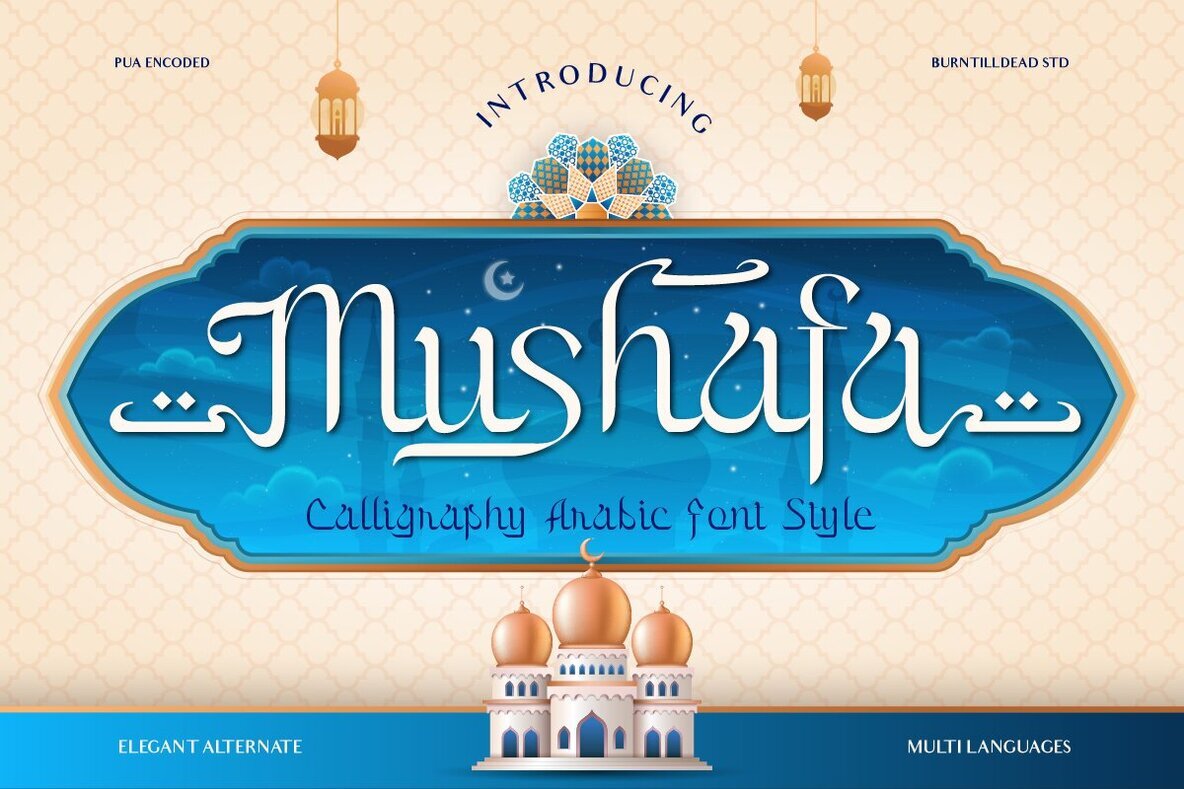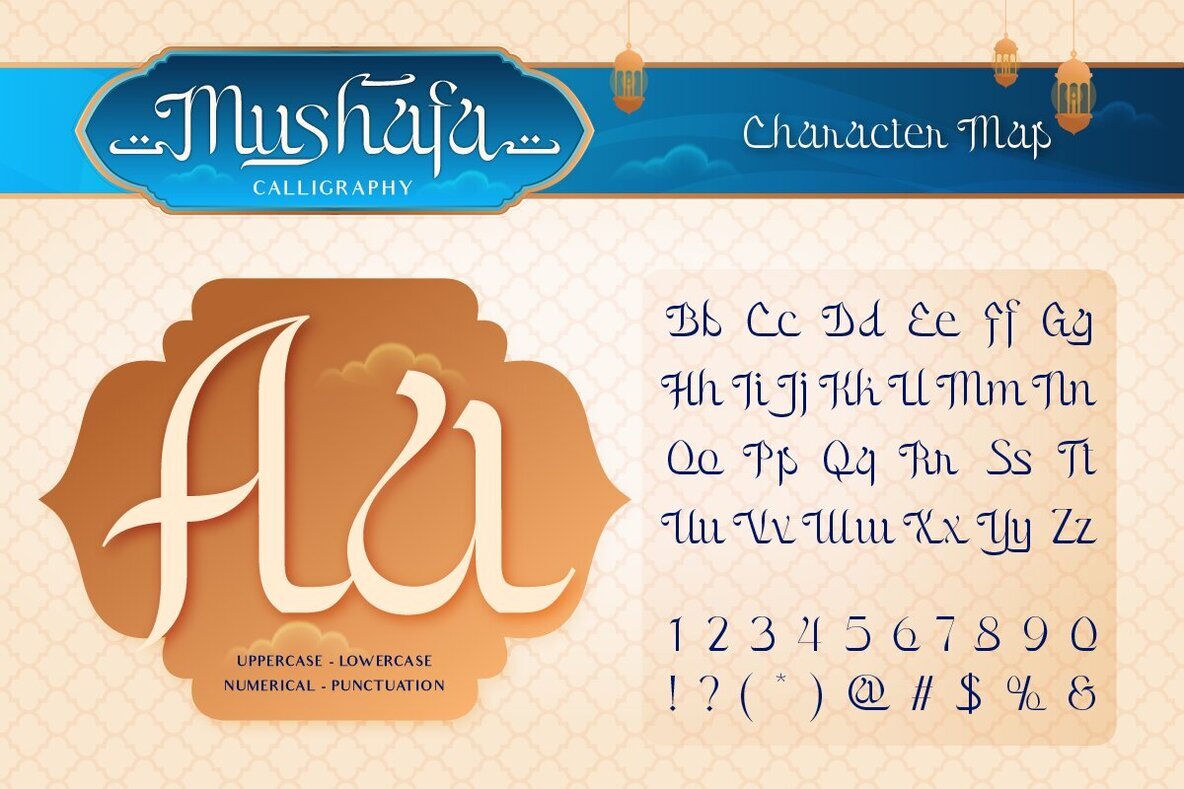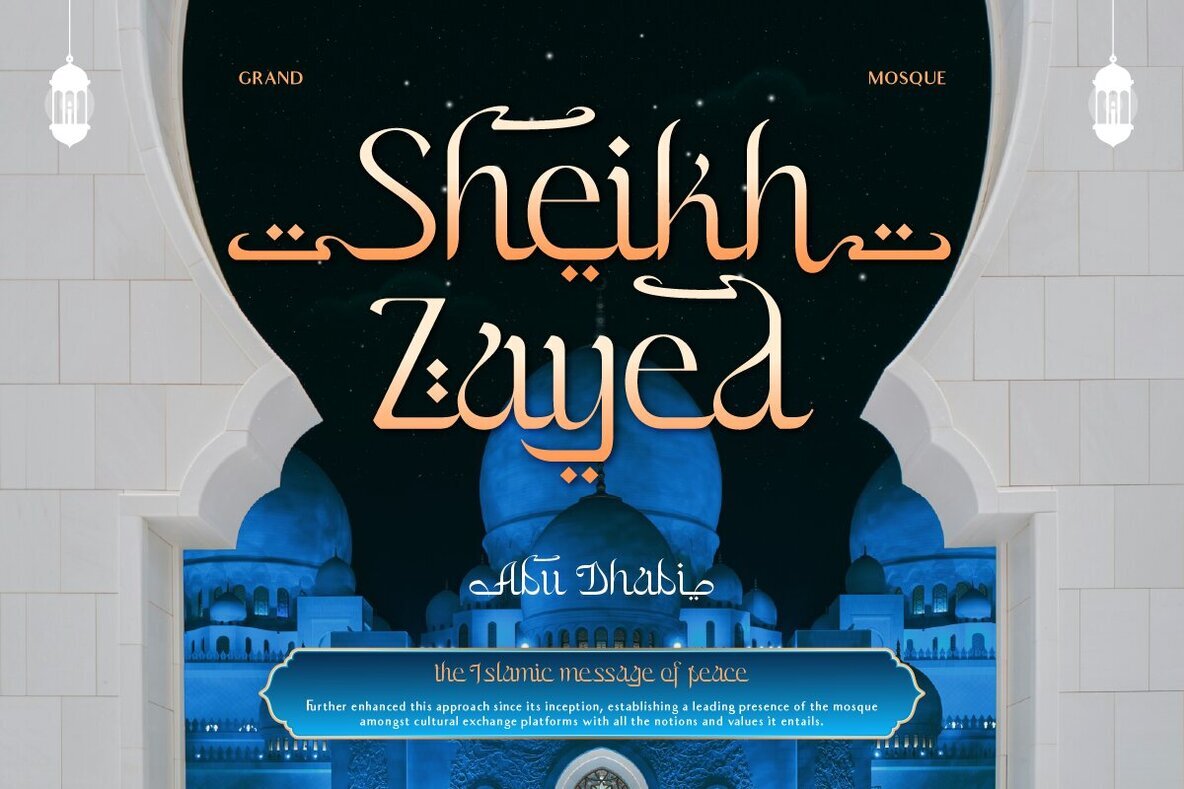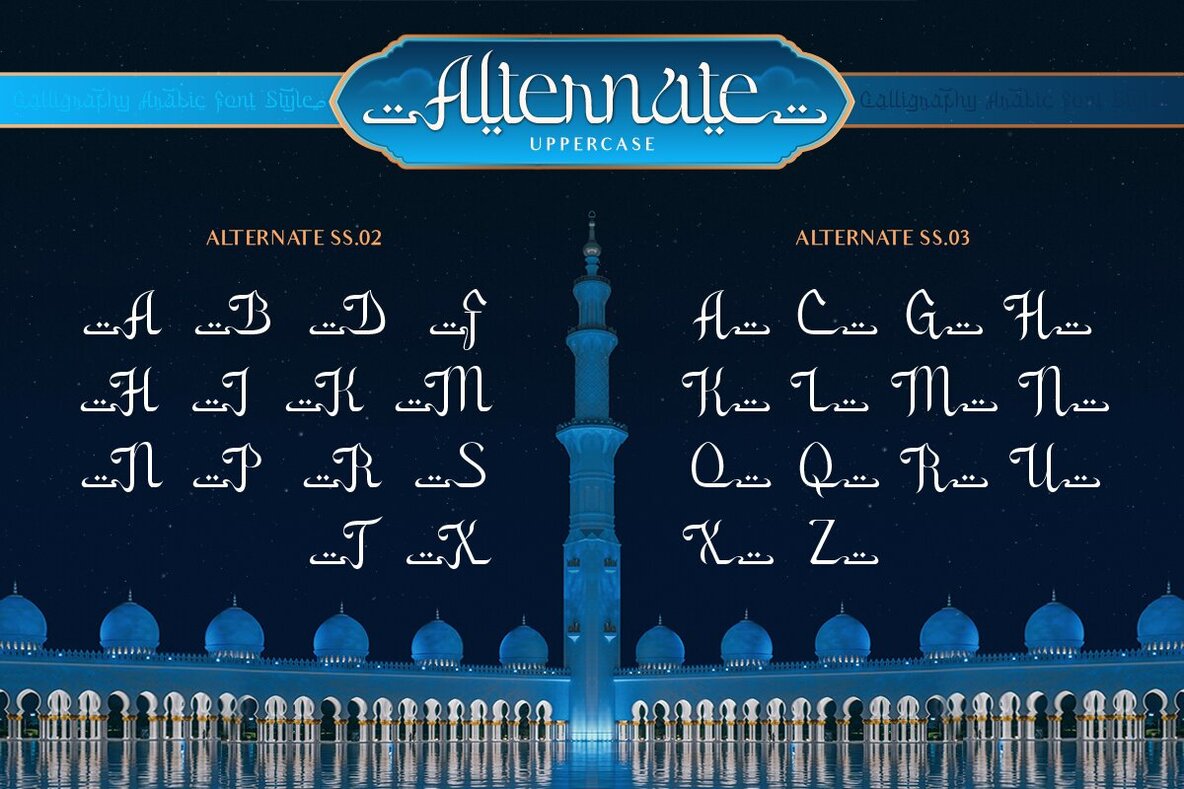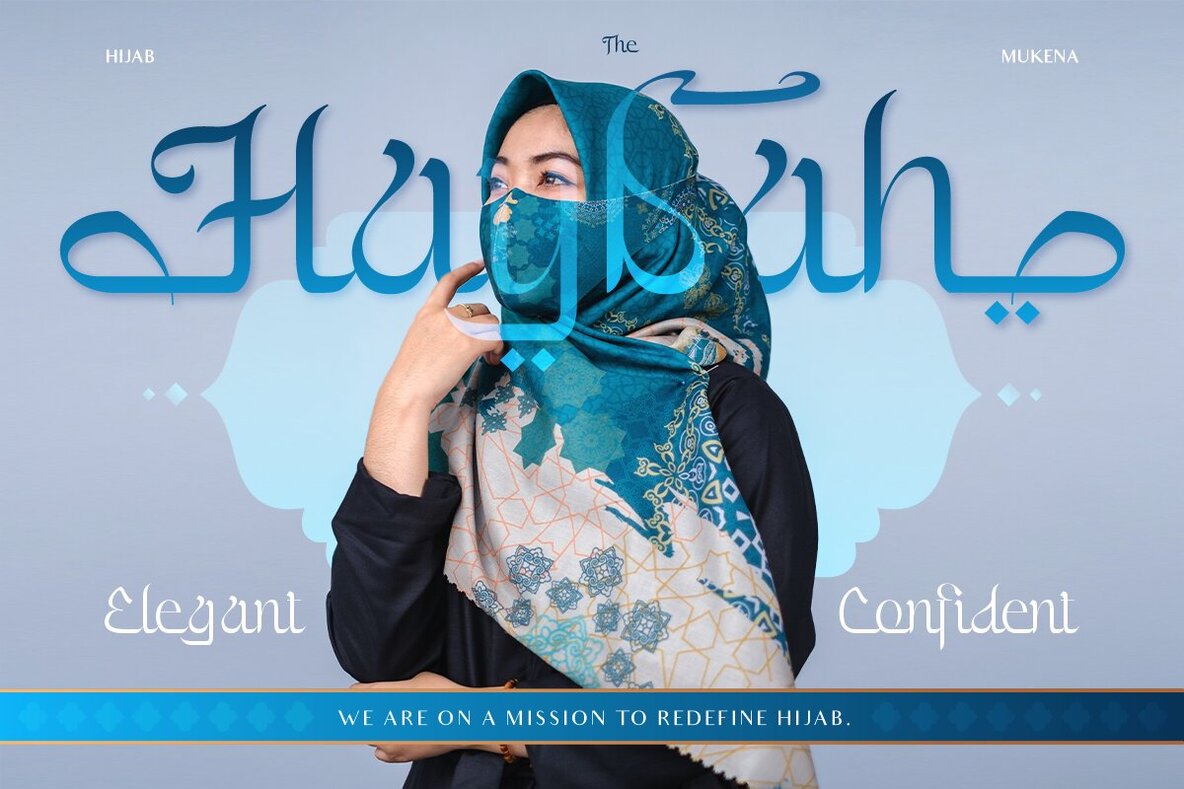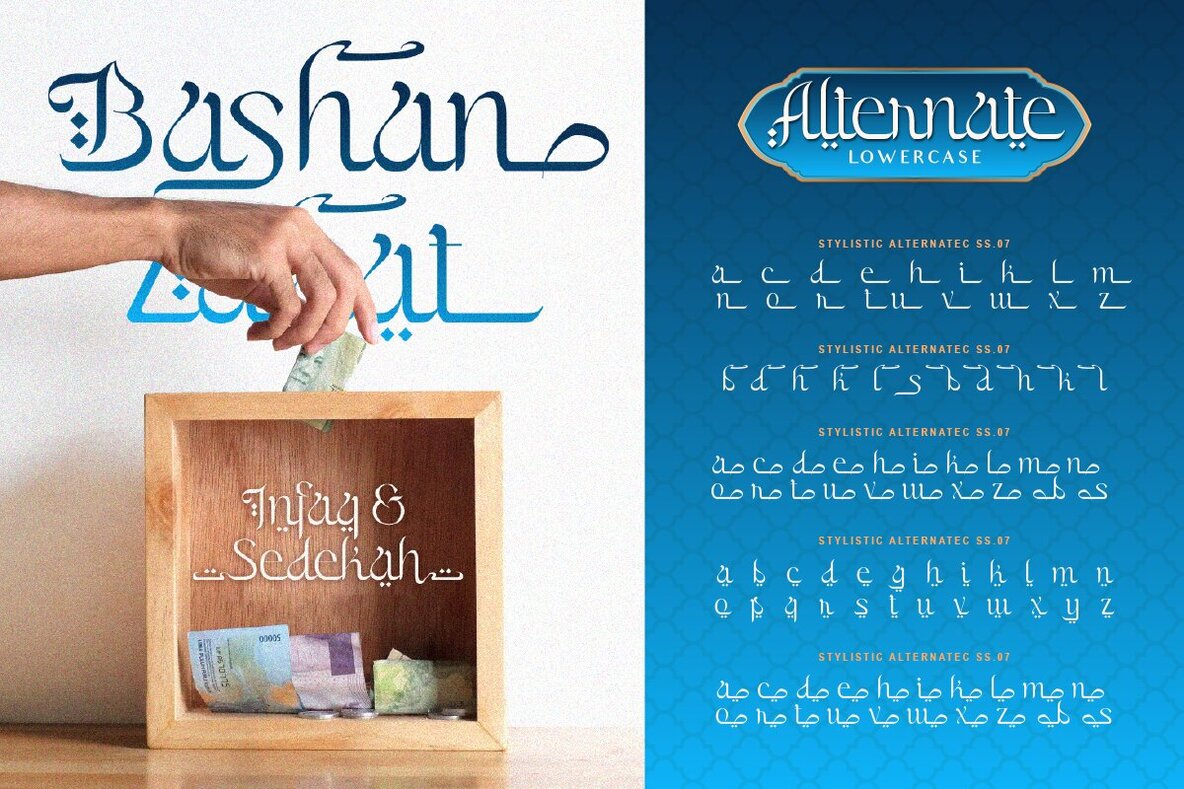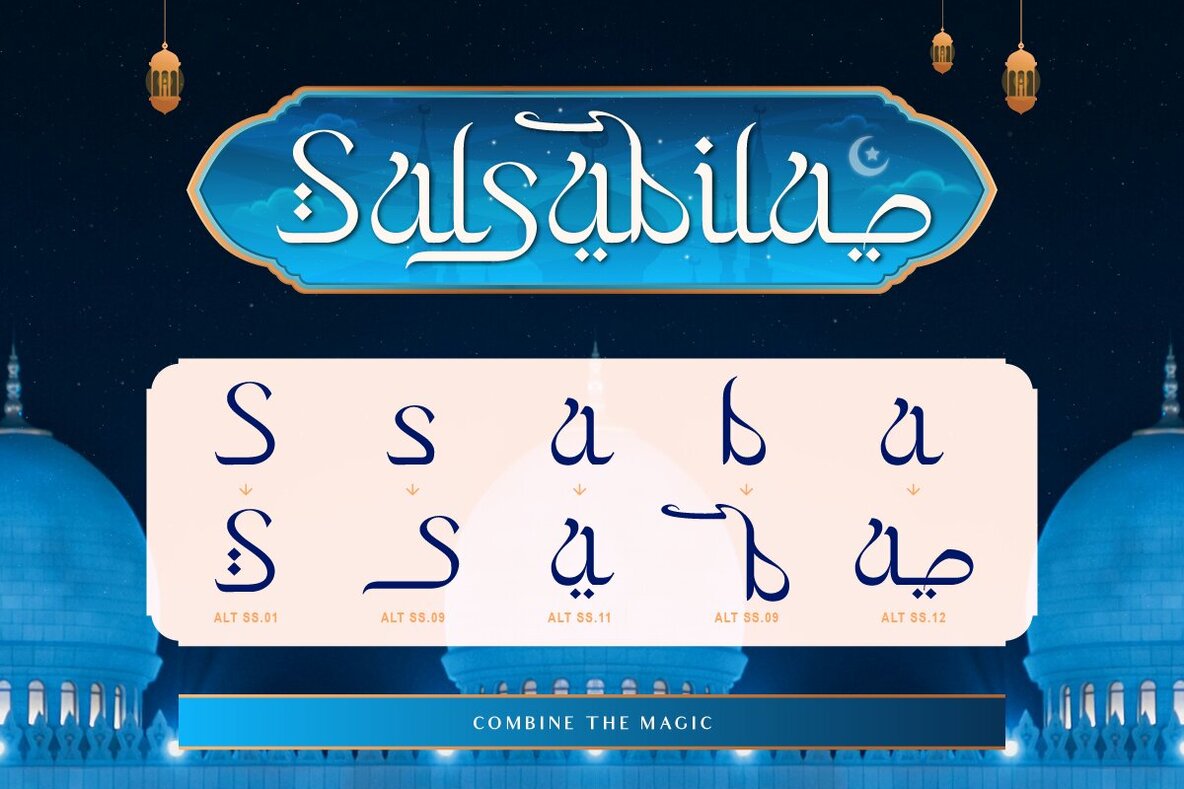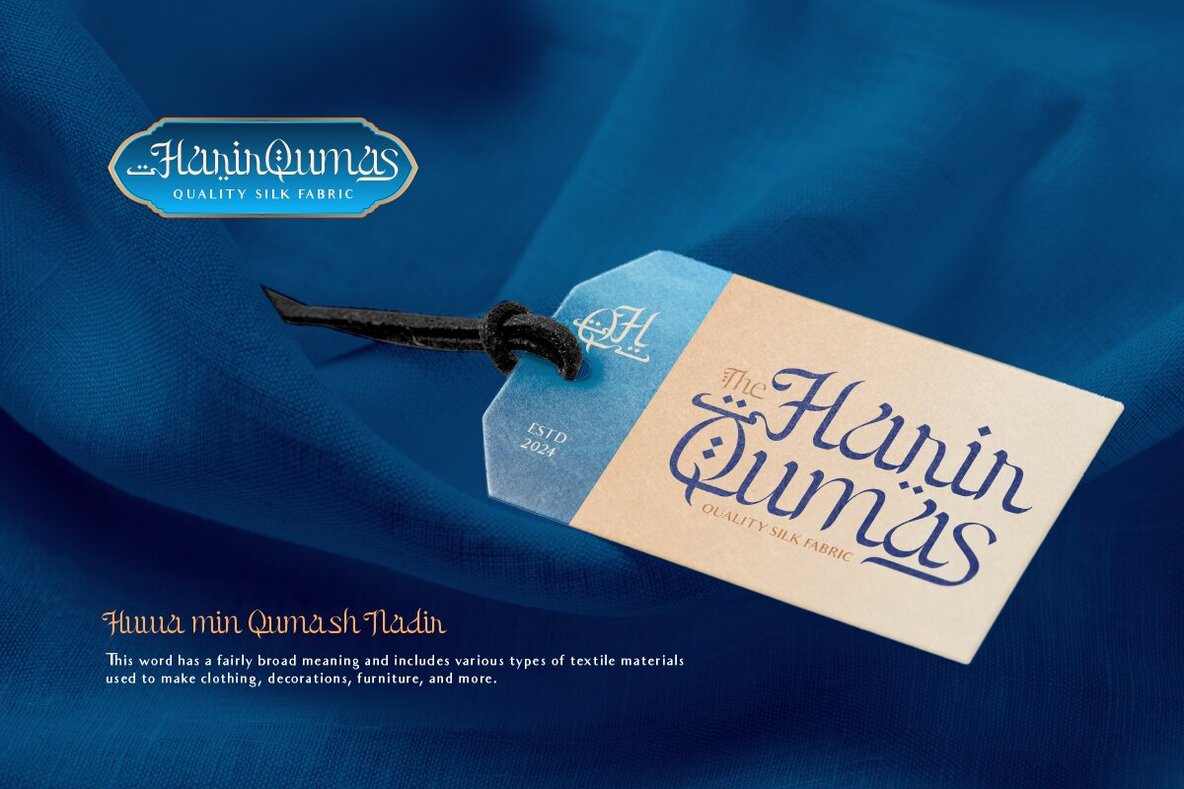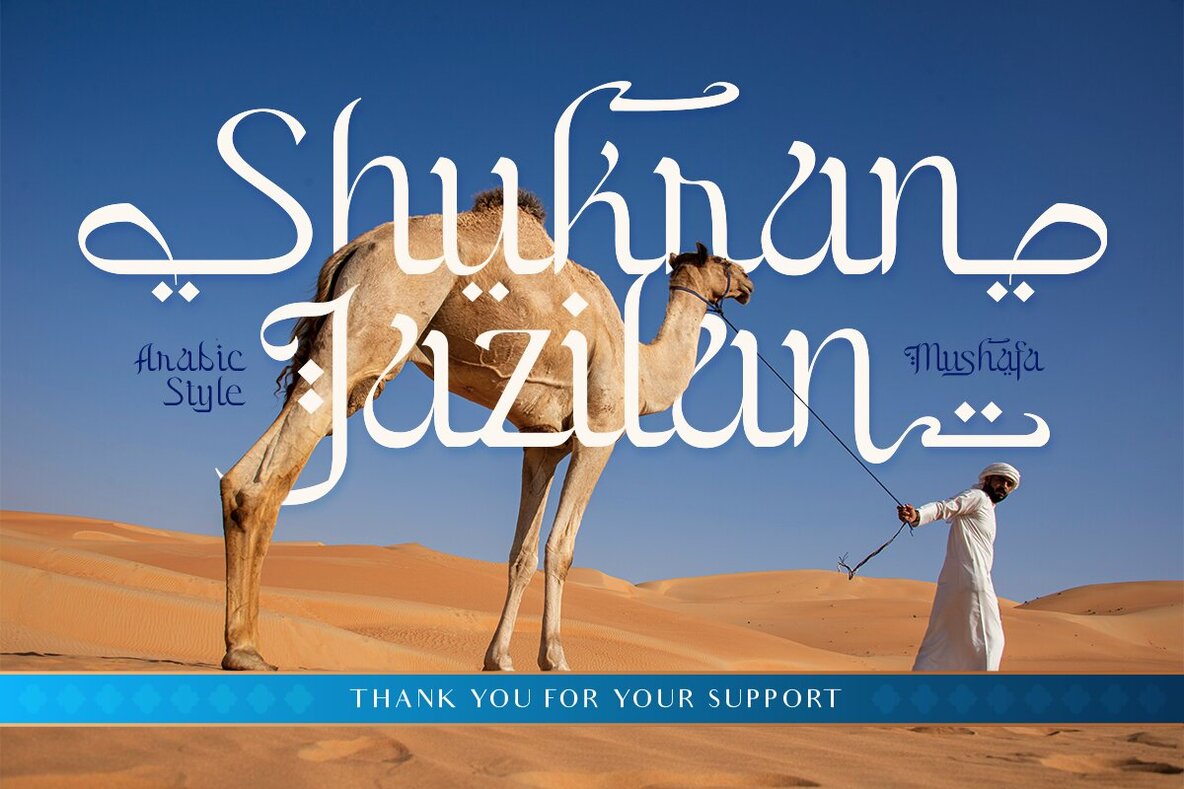
Mushafa Font
Mushafa is a mesmerizing font that beautifully merges the traditional allure of Arabic calligraphy with a sleek, modern twist. Drawing inspiration from the ornate aesthetic of Arabic script, this font showcases graceful curves and delicate flourishes, aptly capturing the essence of its cultural roots. Mushafa includes a variety of alternates, enriching its versatility and lending a unique cultural depth to your designs.
Available in two distinct styles—regular and outline—Mushafa is equipped with multilingual support, making it ideal for an array of global applications. Whether you're designing logos, crafting invitations, shaping social media graphics, conceptualizing posters, or enhancing any editorial design, Mushafa infuses an Arabic or Islamic touch to your project.
The font's comprehensive features include a full A-Z set in both uppercase and lowercase, numbers, punctuation, and alternates, providing a robust toolkit for diverse design needs. With its Mushafa Characters Map, navigating the font's extensive capabilities is seamless, allowing designers to effortlessly explore and implement its creative potential.